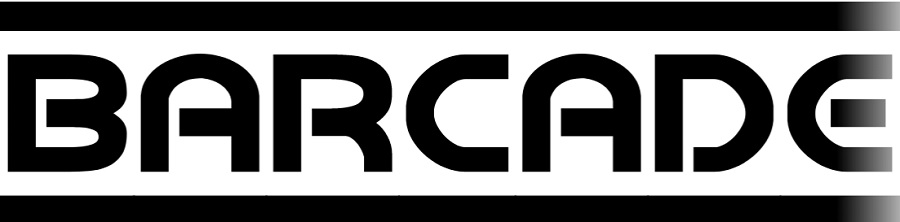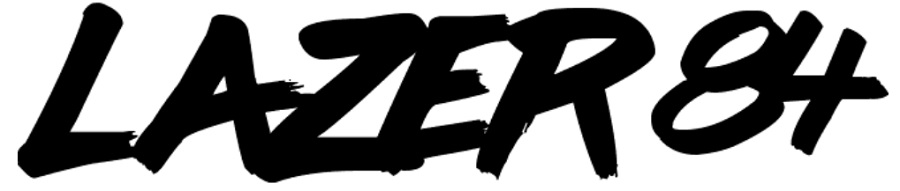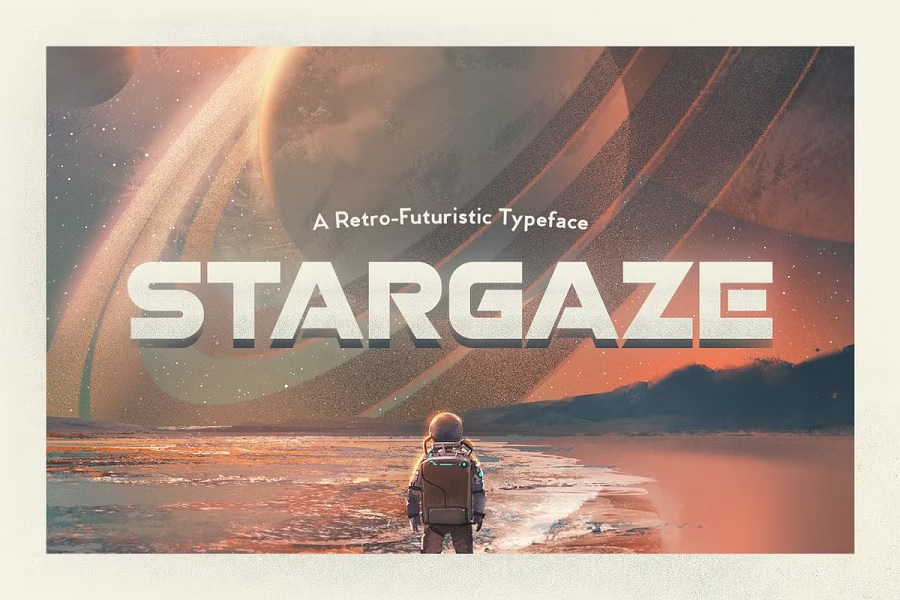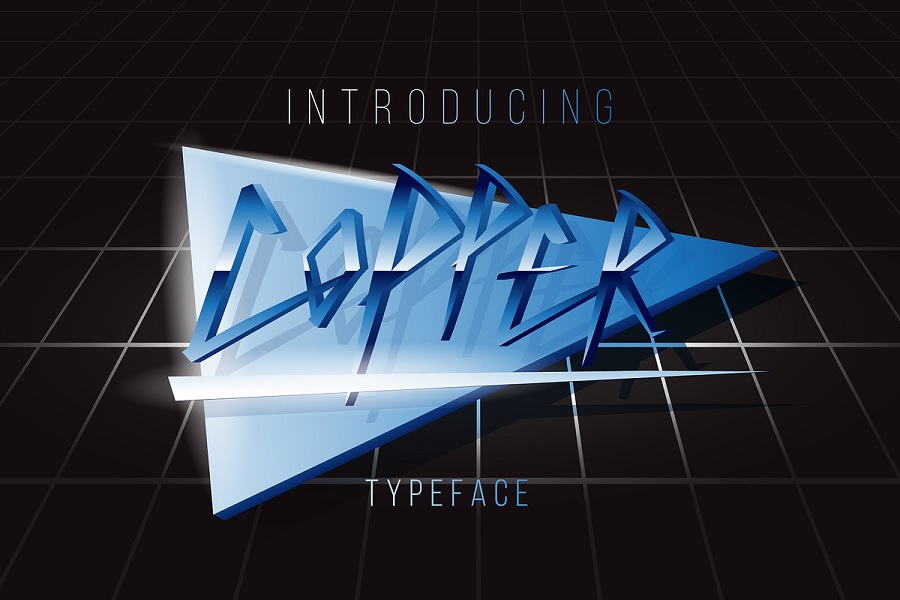
The 1980s was a unique style decade. Filled with neon signs, deco and big hair. The time period brought us big shoulder pads, acid-washed jeans and valley girls. The movie titles and advertising of the time have a distinctive feel one can only achieve by seleting 80s style font choices.
If your client wants a retro look, adding in a heading or choosing a logo design that screams sans serif with some angles and curves is the right option for your project.
If you search for 80s style fonts, you’ll pull up dozens of options. Some are better than others. We’ve taken the time to look at what is reminiscent of the Decade of Decadence and picked a few favorites to share.
1. Overdrive Avenue
The 1980s meant going to the movies, some drive-ins were still around and renting a VHS tape from Blockbuster. Many movies of the era used big, thick lettering and had an almost futuristic look. Overdrive Avenue comes with sans serif and script styles, including an italics. The set also comes with an outline option.
2. Knight Brush
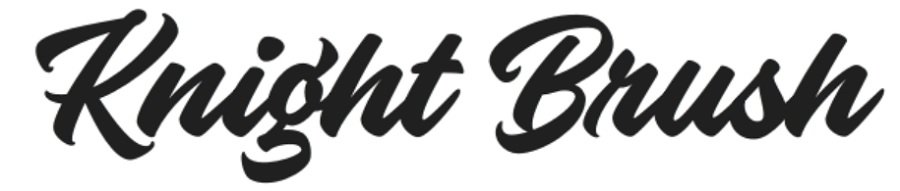
Knight Brush has a fancy, 1980s script feel to it that offers a unique appearance excellent for retro projects. Although it is script, it is still readable with the straight lines and added angles that give it that 80s vibe. The font comes with more than 570 glyphs for a handpainted look. The font supports multiple languages, including English, Albanian, Tetum, Pangasinan and Walloon.
3. Hadfield
If you’re looking for a font that isn’t quite as thick but still has the 80s retro vibe, look no further than Hadfield. The font was initially released in the 1980s and made it to the number one font. It is a script-based rendering.
Hadfield is often seen on posters, logo and product packaging. Other fonts published around the same time include AG Book, Formata and Baskerville. One way you can get a 1980s style font look while still taking advantage of the modern advantages of today’s designs is by using a retro font in the heading and more current fonts in the body text.
4. Rodagear Script
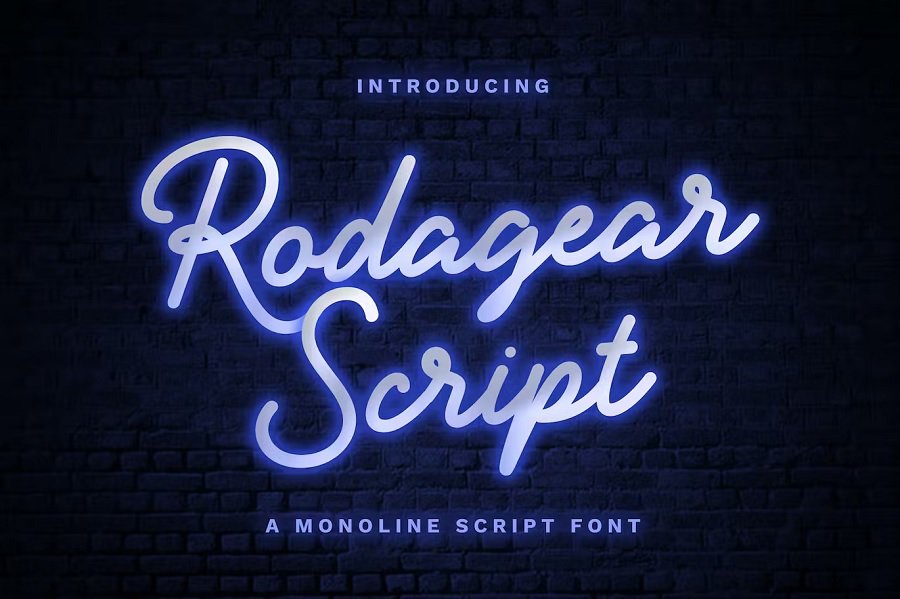
Neon signs and bright, bold colors were a staple of the 80s. Rodagear Script offers a slightly more sophisticated look with a tall x-height and swoops and swirls. In the image example, they’ve made the font look like a sign. The colors and accents you use can turn this option more into an 80s style font or something a bit more modern.
5. Orlando
Don Johnson had a distinctive 80s beach look in the show Miami Vice. Orlando font gives that same feel as the show set out to capture. It’s an edgy, somewhat futuristic but casual look that pulls the user in and makes them feel awed and comfortable at the same time.
Orlando is a multi-line font that looks handdrawn. Add the right background and other elements and you have a Miami Vice look alike that those who loved the decade will recognize.
6. Neoneon
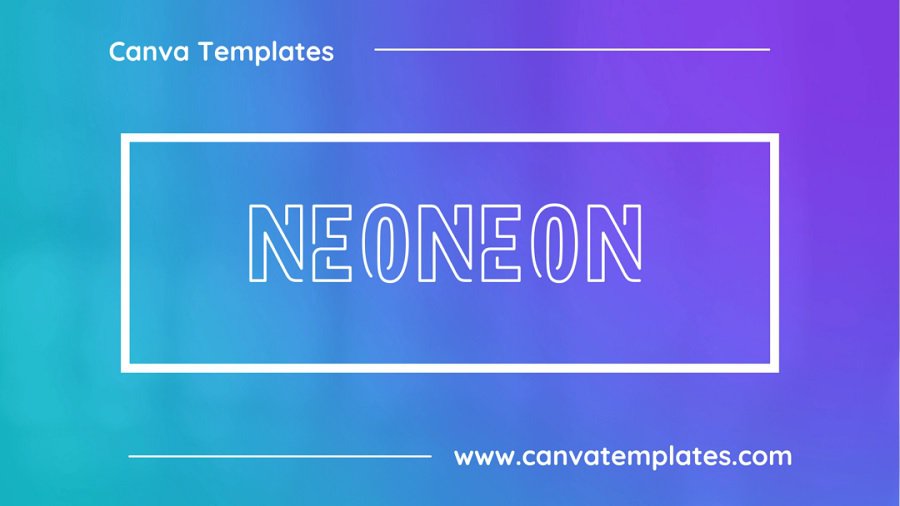
If you do any of your design work in Canva, you’ll want to check out their font titled Neoneon. The outline font has some interesting quirks. First, some of the lines and angles intersect one another to create an almost script-like look.
The uniqueness and fun edge to the font scream 1980s style. Utilize the right colors and you have a look that brings back the time period of “gag me with a spoon” and parachute pants.
7. Arcade Machine
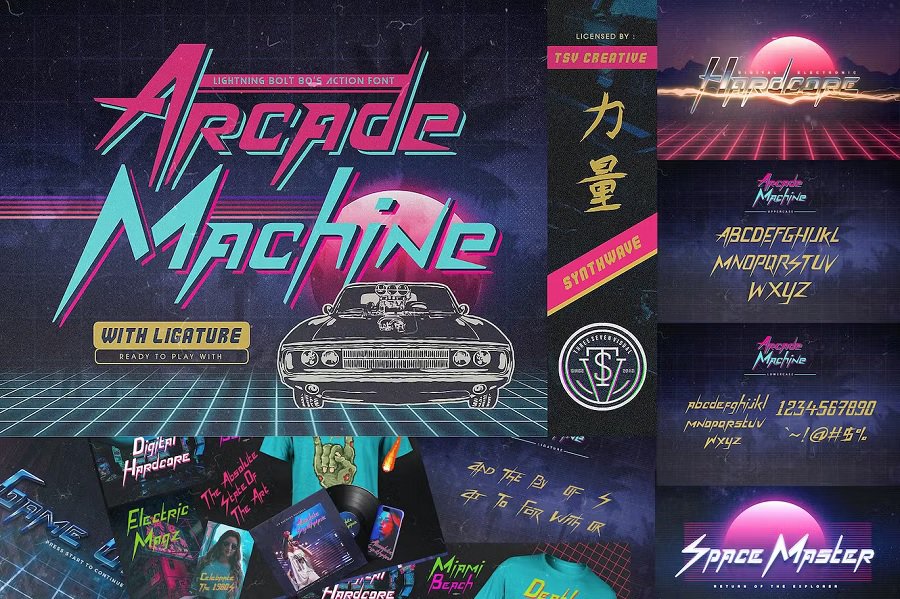
Teens in the 1980s went to movies and hung out at football games and made arcades a way of life. If you’re looking for a font that evokes a 1980s arcade, check out Arcade Machine. It looks like the lettering on many games and music albums of the decade. You can layer different bright colors for more interest.
8. Thunderstorm
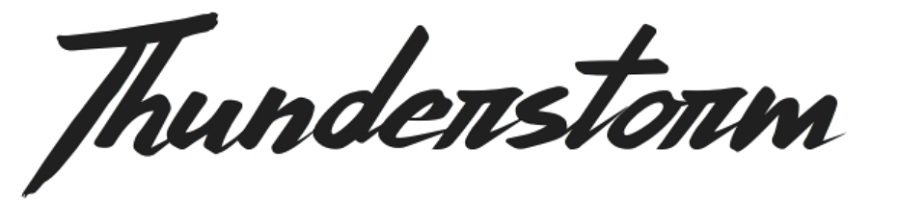
This beautiful Thunderstorm font reminds one of fast cars and fast times in high school. It is the epitome of an 80s style font thanks to the swoops and swirls seen on various movie posters of the time. It reminds one of movies such as “License to Drive” and “Footloose.”
The 1980s were a relaxed, intense and exciting time all at once. Capturing the feel of the decade requires understanding the personalities of the people driving pop culture and studying what designers of the decade focused most on. With a little practive, you’ll be able to mimic the attitudes of the 80s without losing today’s more advanced design skills.